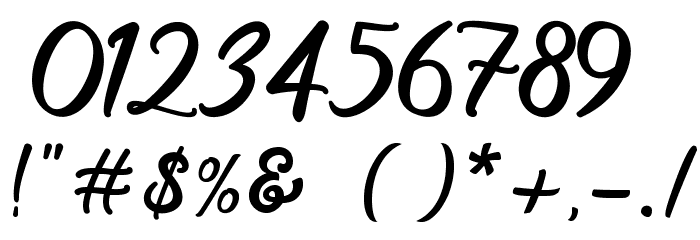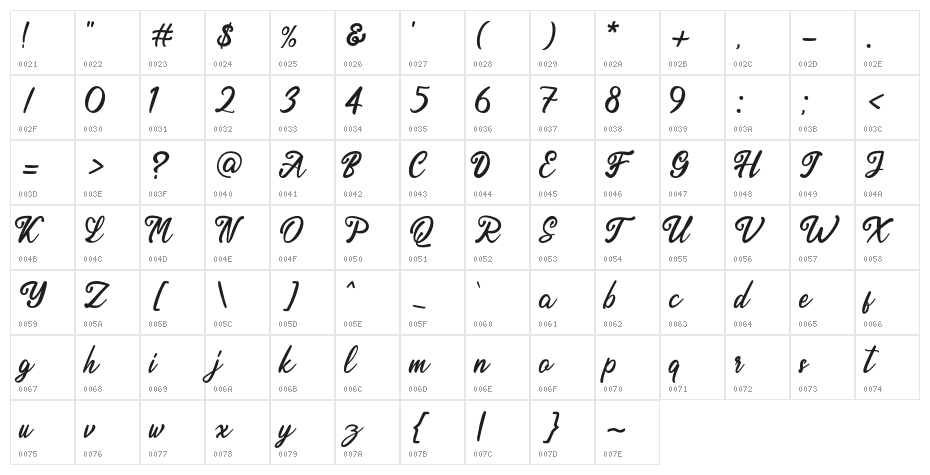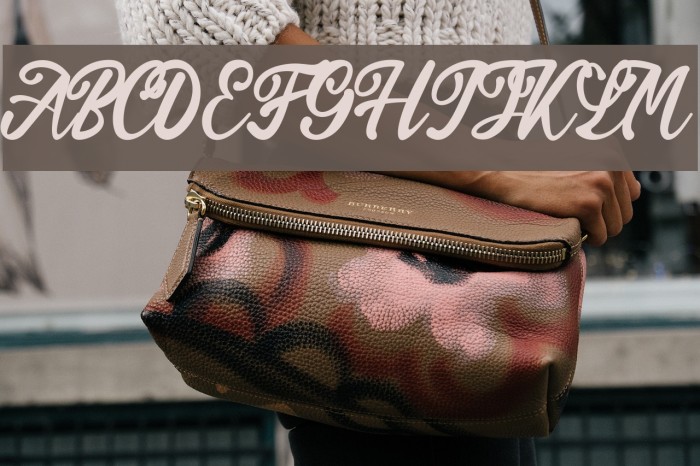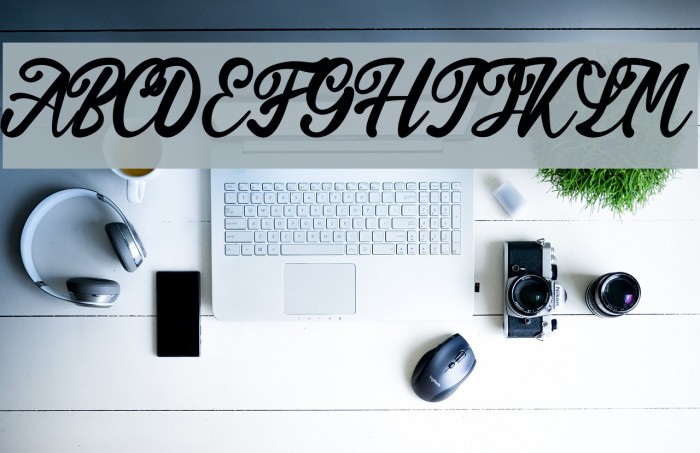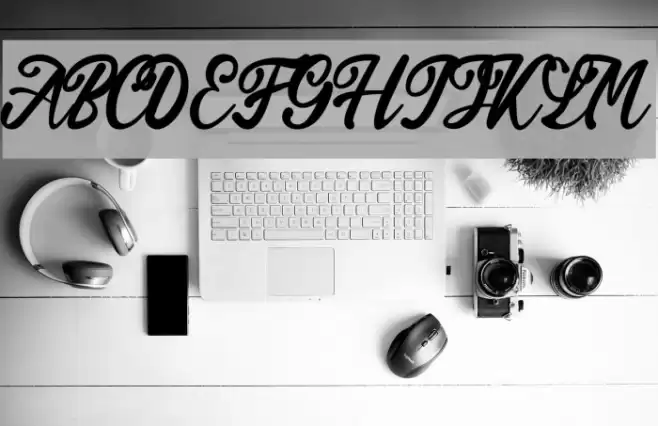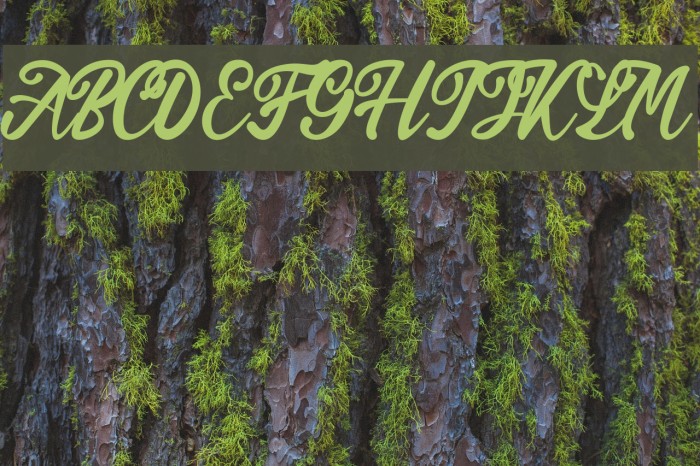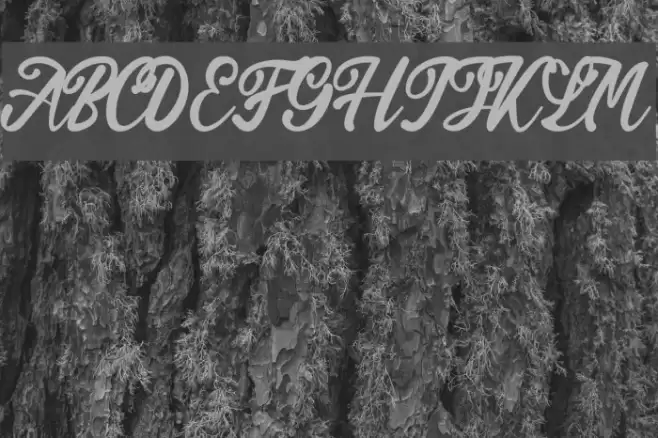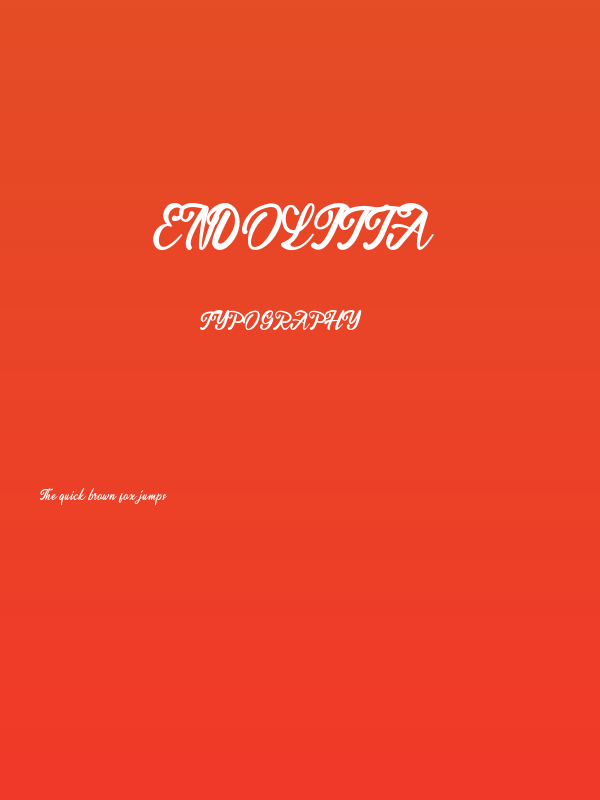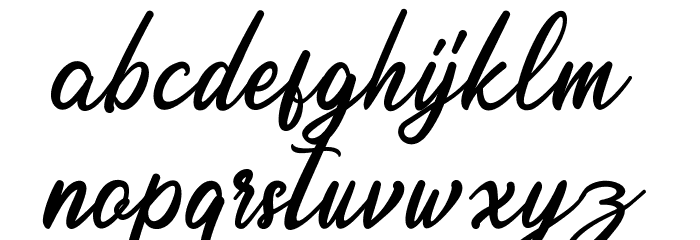
Endolitta Font
Endolitta Description
This font features a flowing, cursive style with elegant loops and swirls, reminiscent of traditional calligraphy. The uppercase letters are bold and sweeping, while the lowercase letters maintain a consistent fluidity, creating a harmonious balance. The numerals are designed with the same cursive flair, ensuring a cohesive look across all characters. Special characters are integrated seamlessly, maintaining the overall aesthetic. The font's design is both decorative and legible, making it suitable for a variety of creative applications.